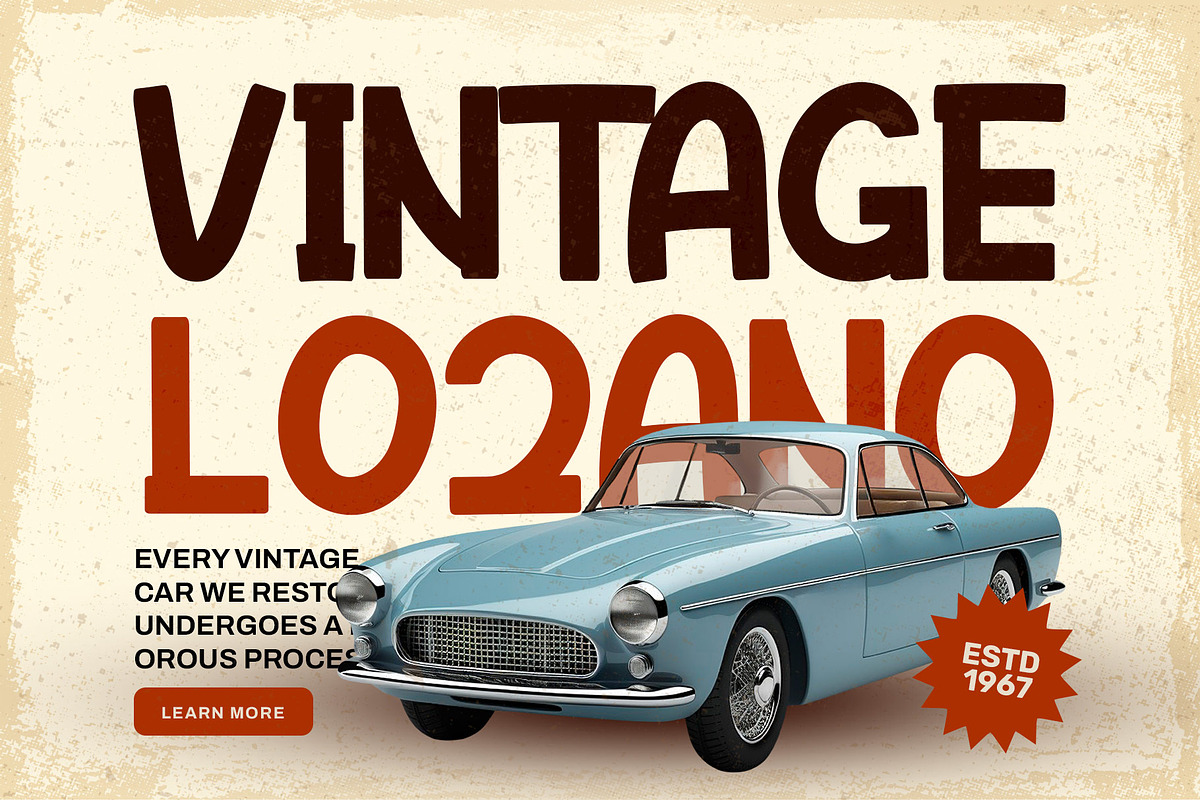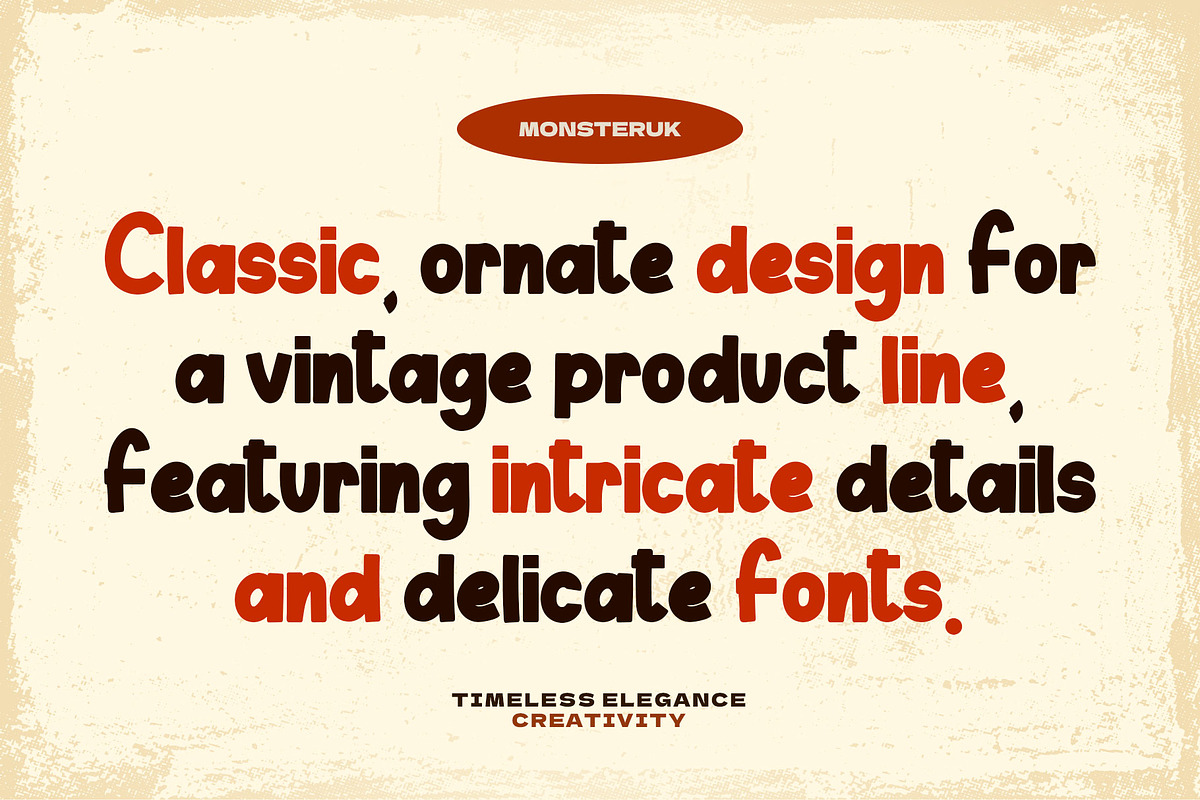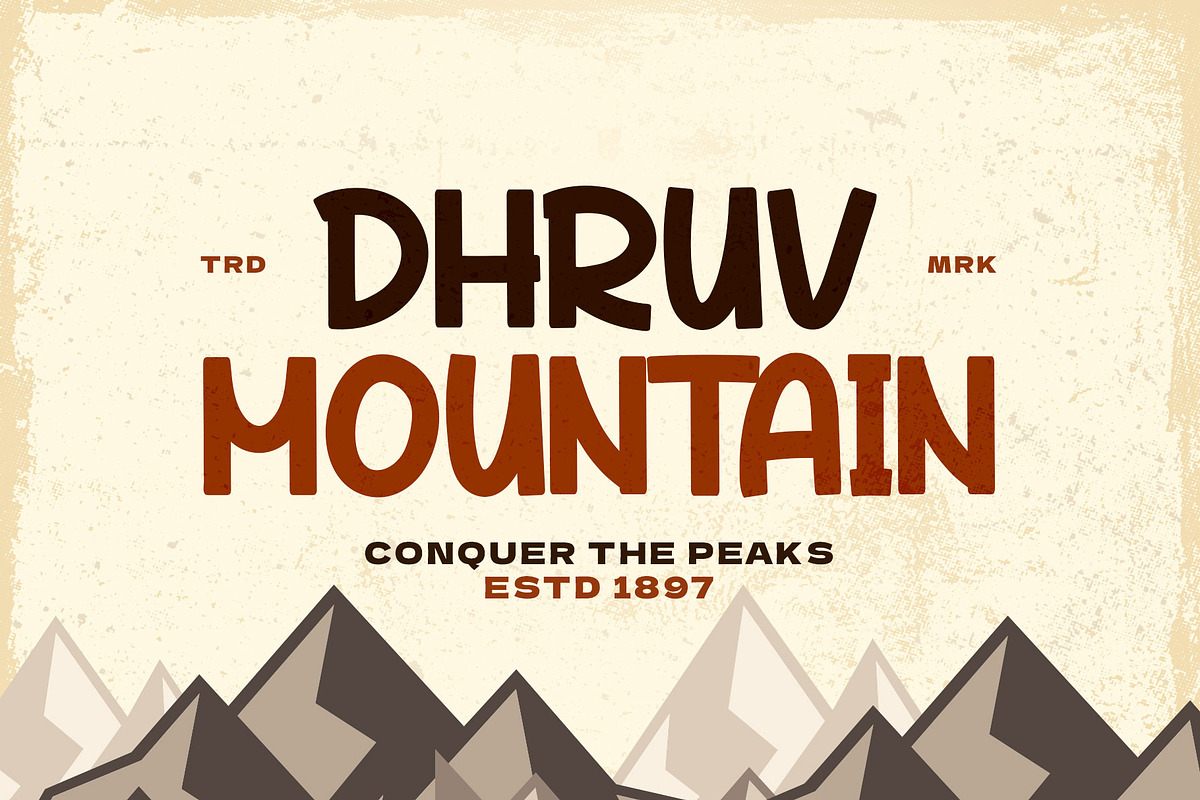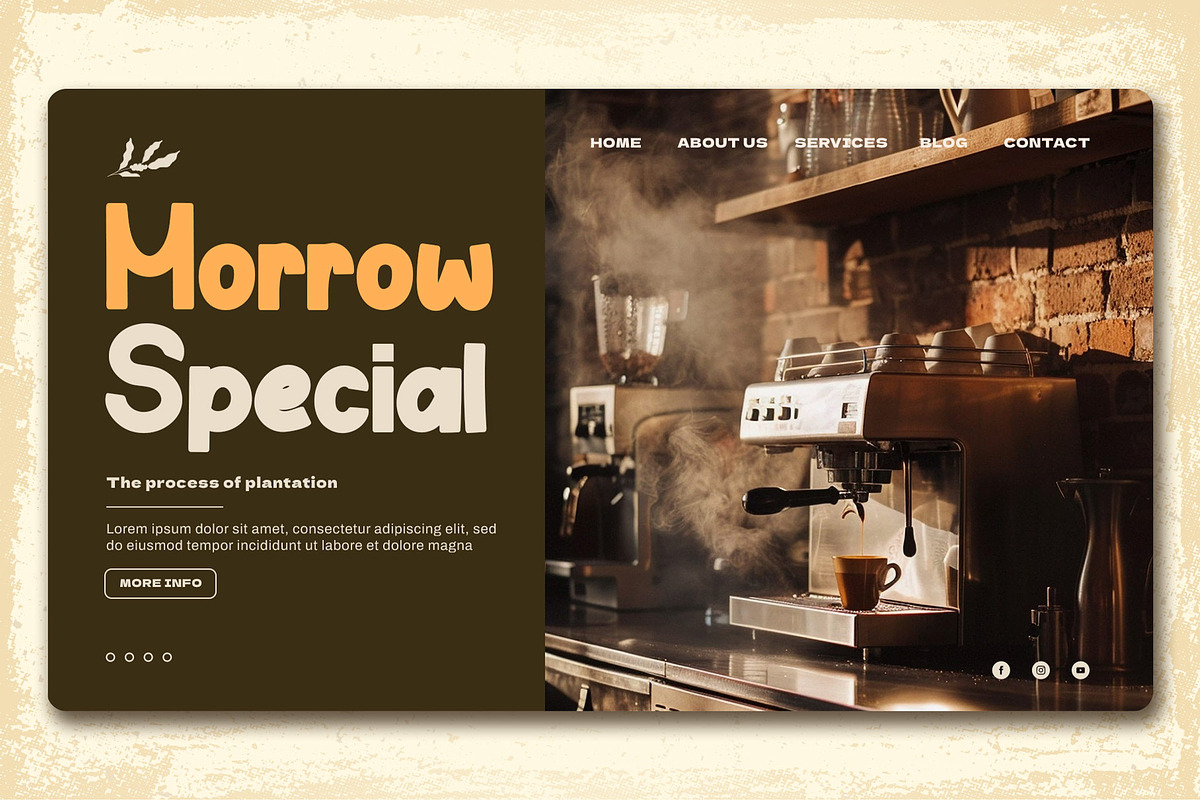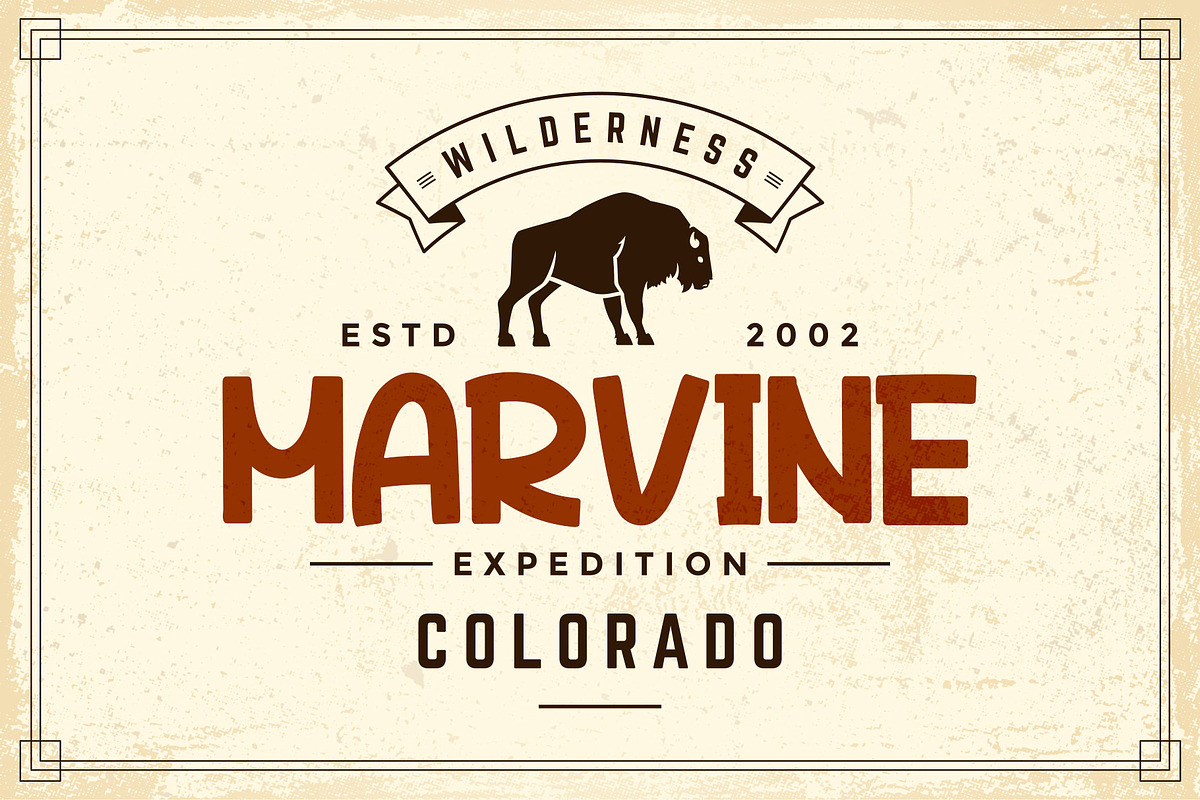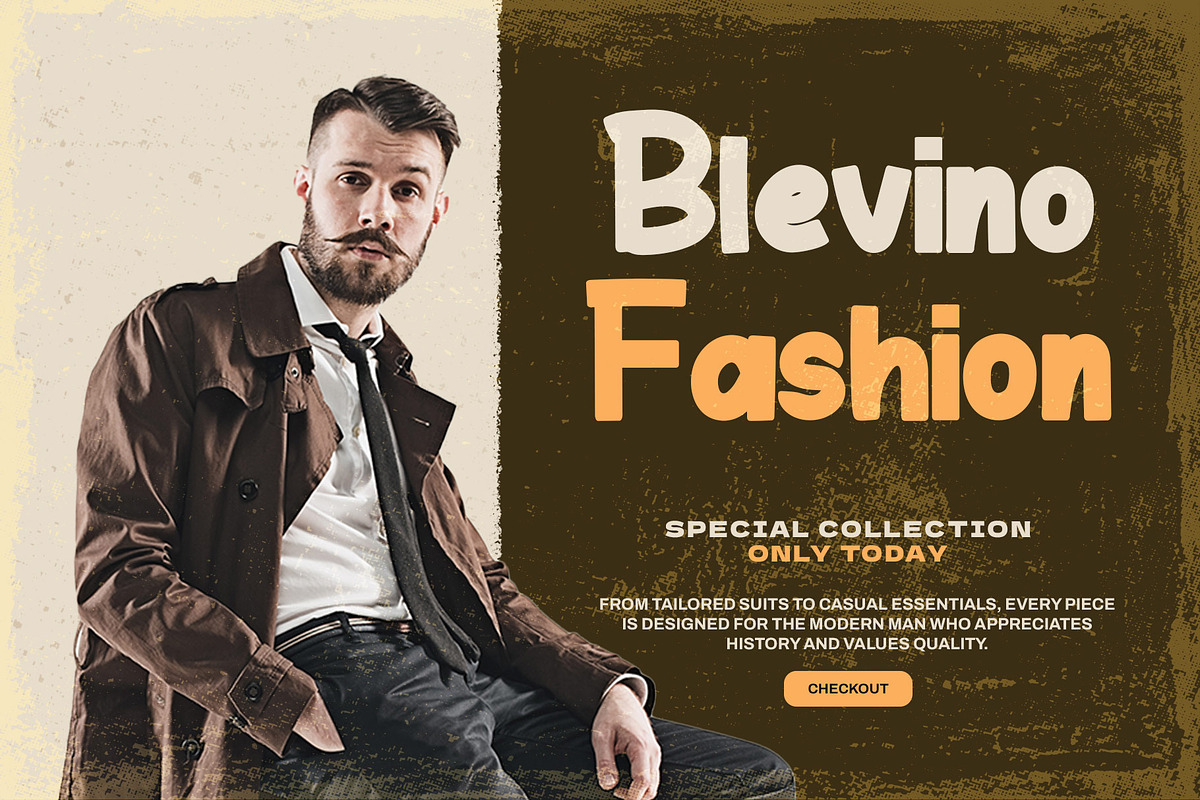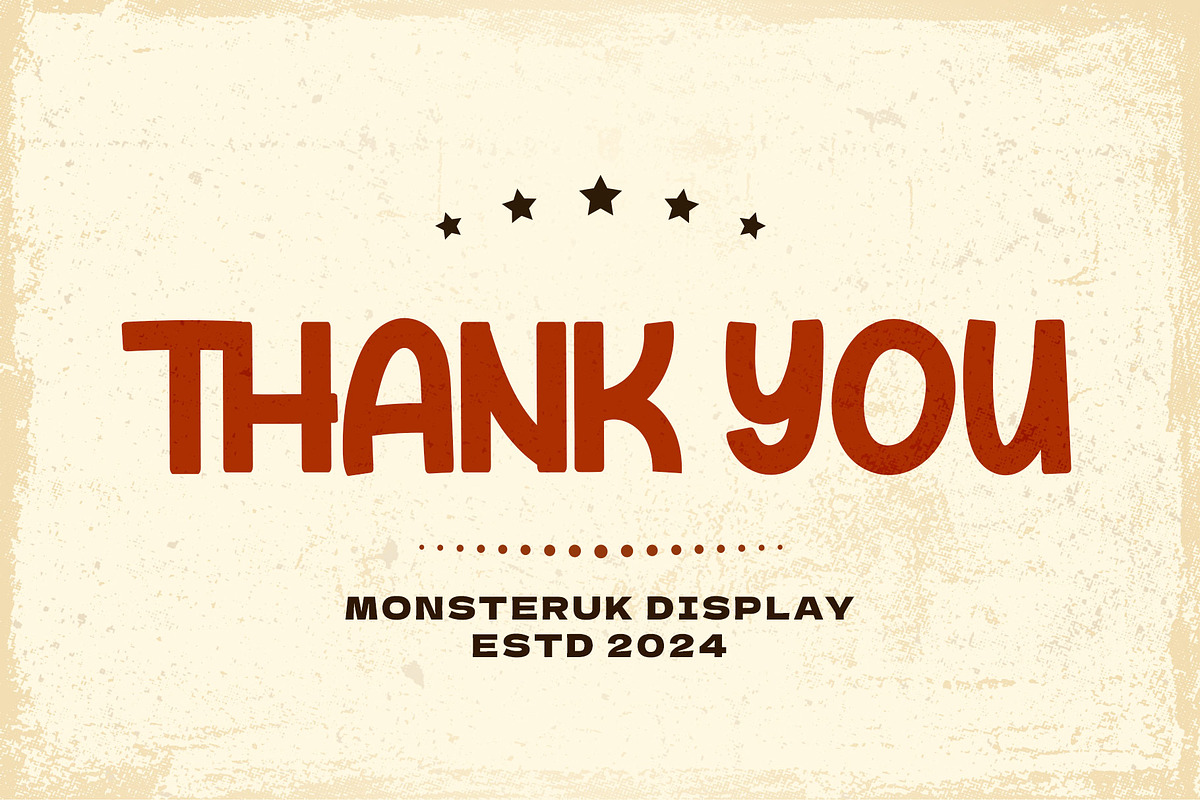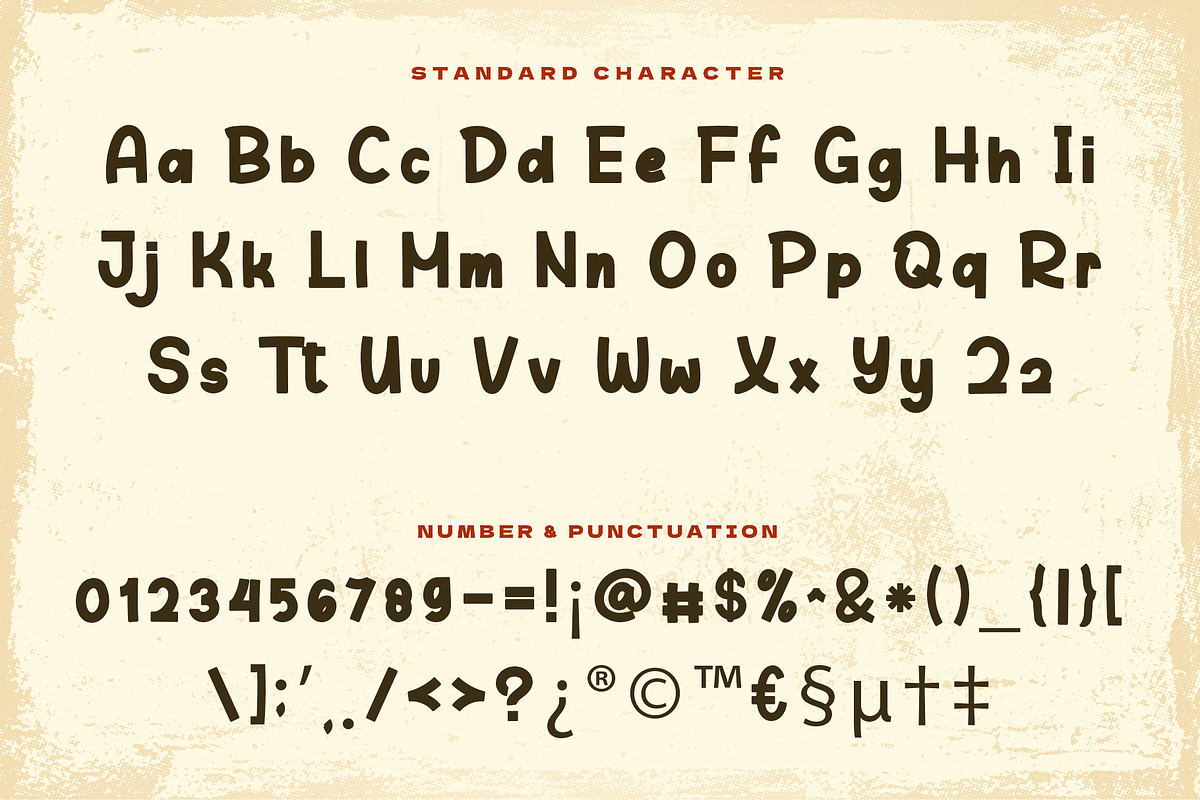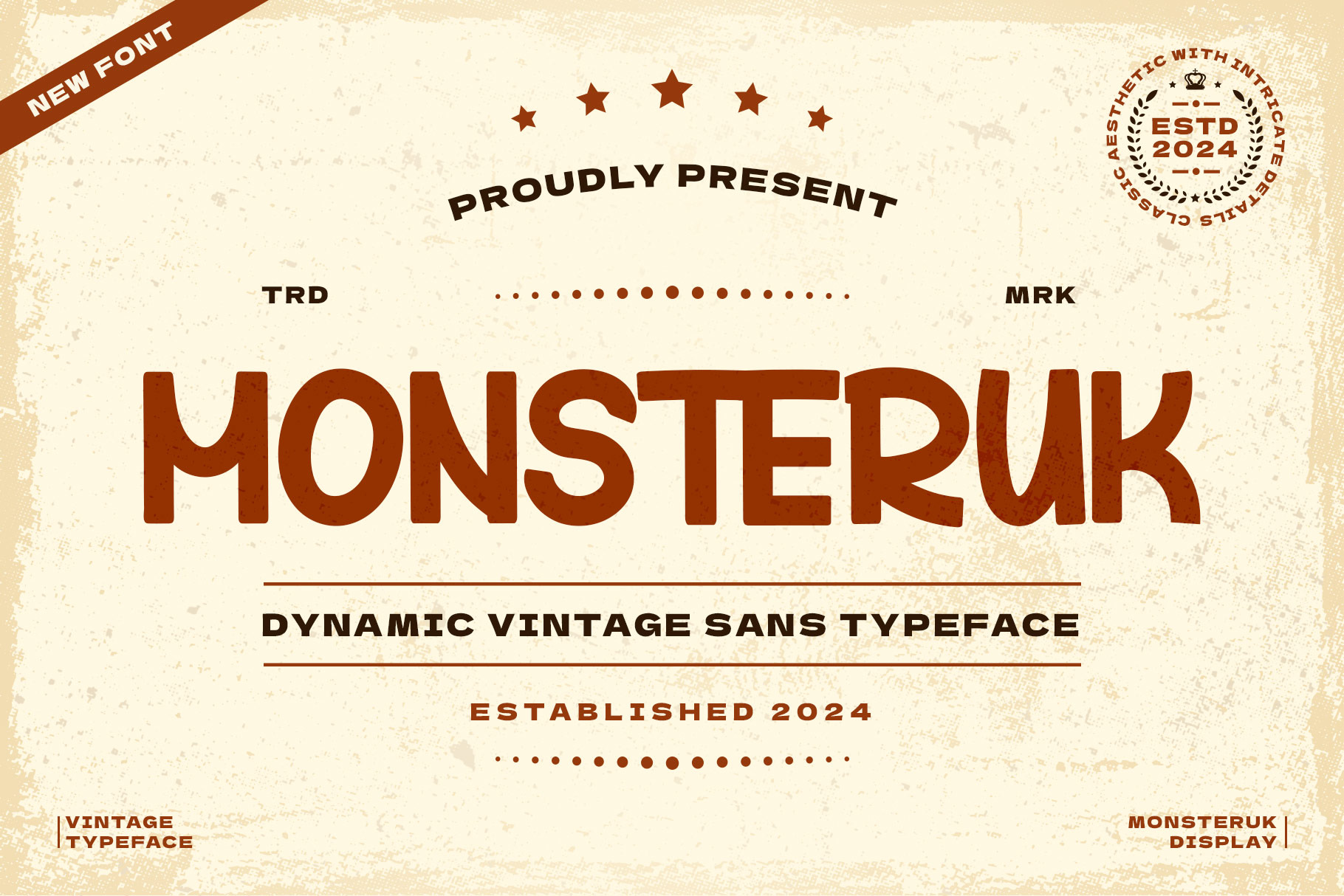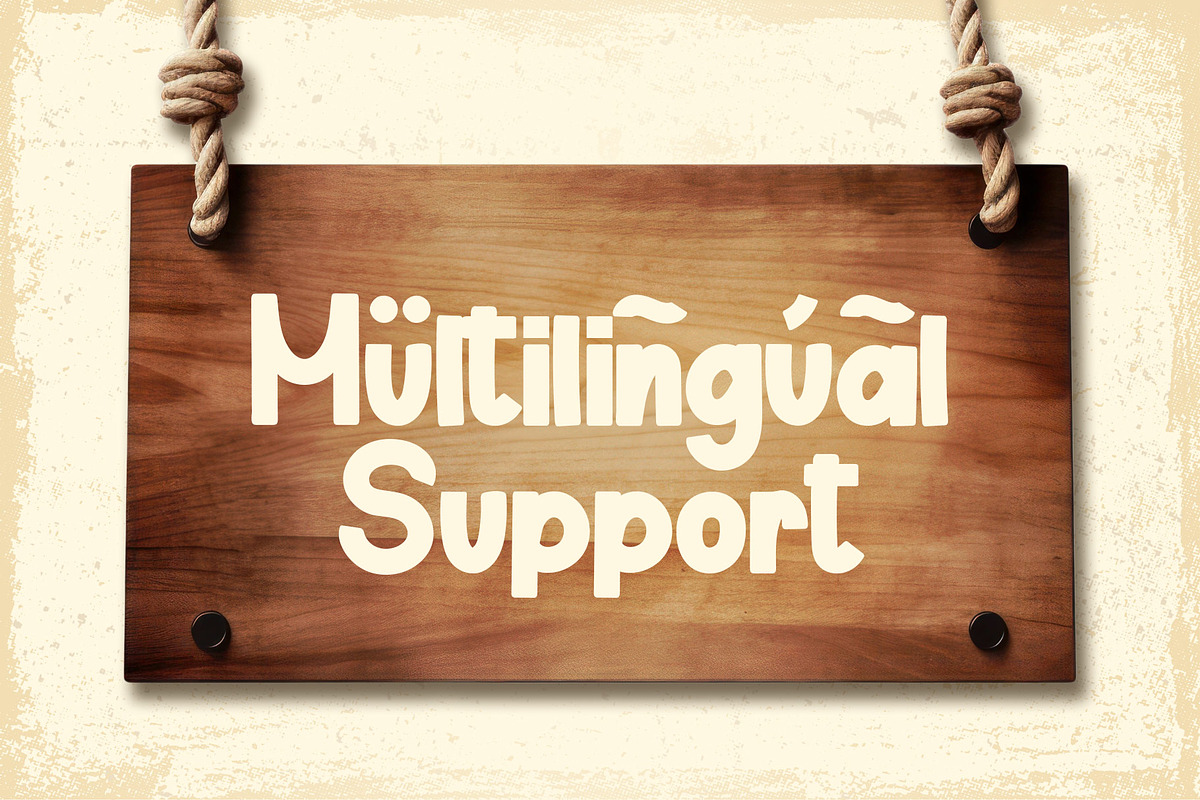
Monsteruk – Display Font
Product Detail Monsteruk display font With a semi-vintage style, this font is suitable for logo needs, adventure shops and many more.